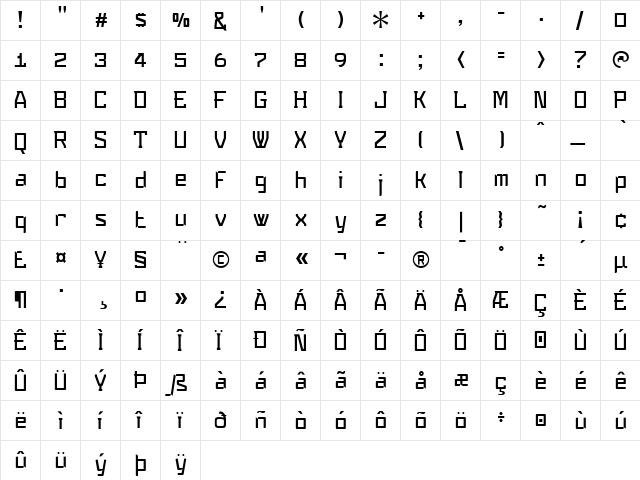
Konvexist Light
Design Context for Konvexist Typeface
Konvexist is a composed and adaptable typeface that performs quietly and consistently across a wide range of design contexts. The delicate stroke weight brings airiness and refinement to layouts.